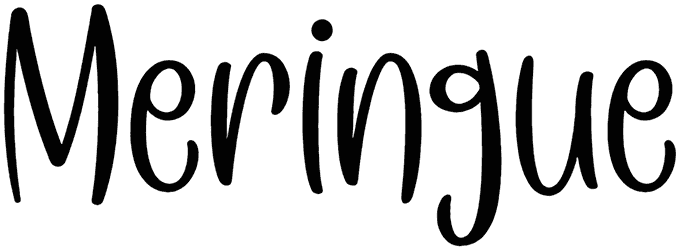
Chicola Smoothy Font
If you want to be in the category of creative industries that have used the most straightforward options to your advantage, Chicola Smoothy can become a symbol of your power. This handwritten font has an inherent simplicity and a childish look, ideal for connecting with your discerning audience.
You can use both styles of capital letters in this bullet journal font to highlight your posters, stationery, packaging, and advertising banners. The lack of lowercase letters will not limit you much.
Designed by: Allouse Studio